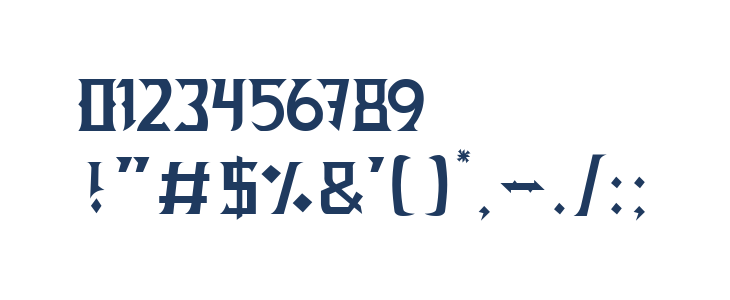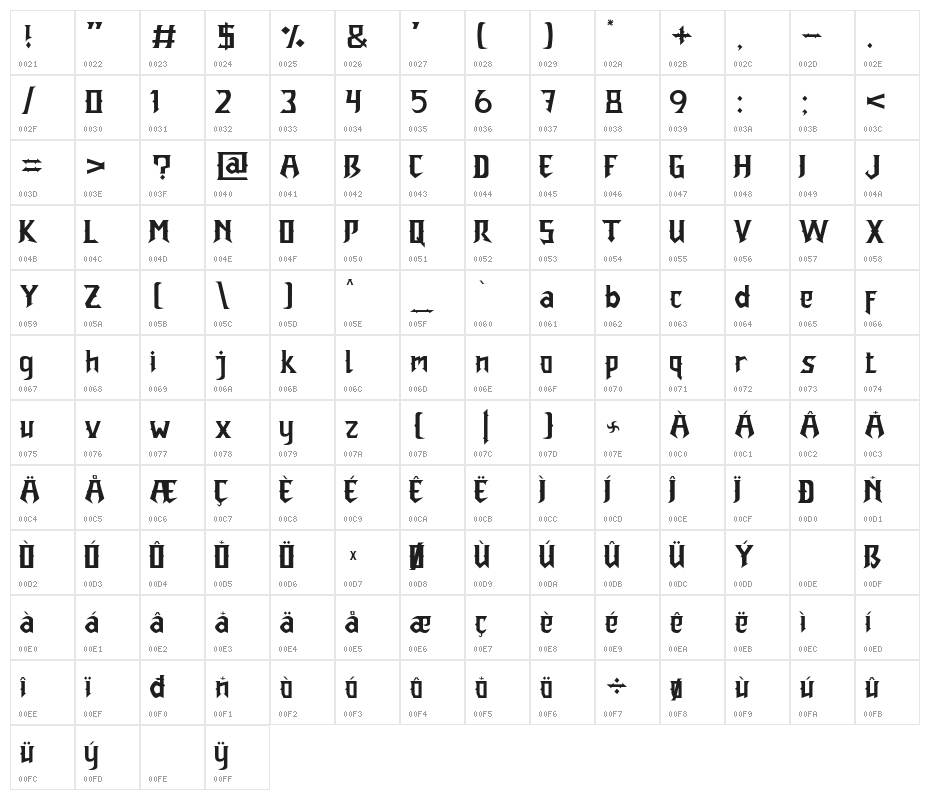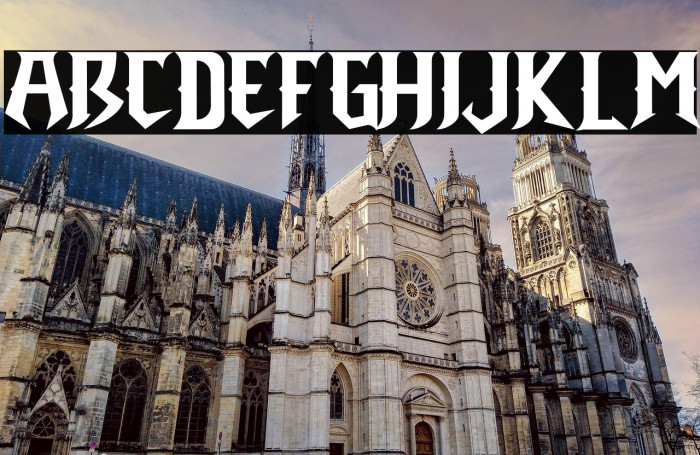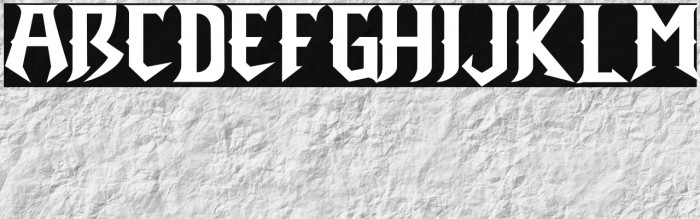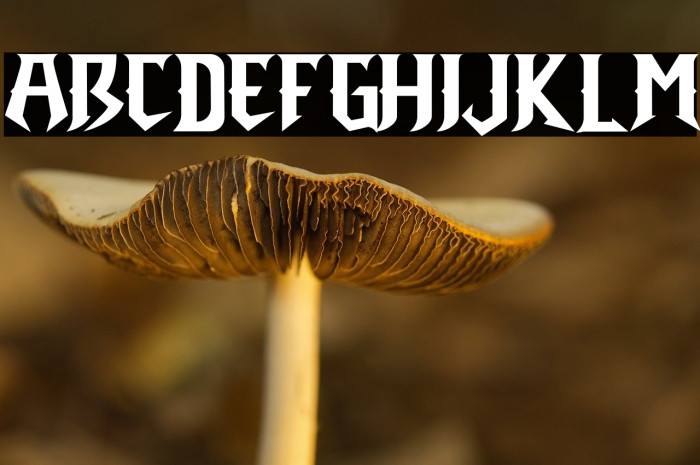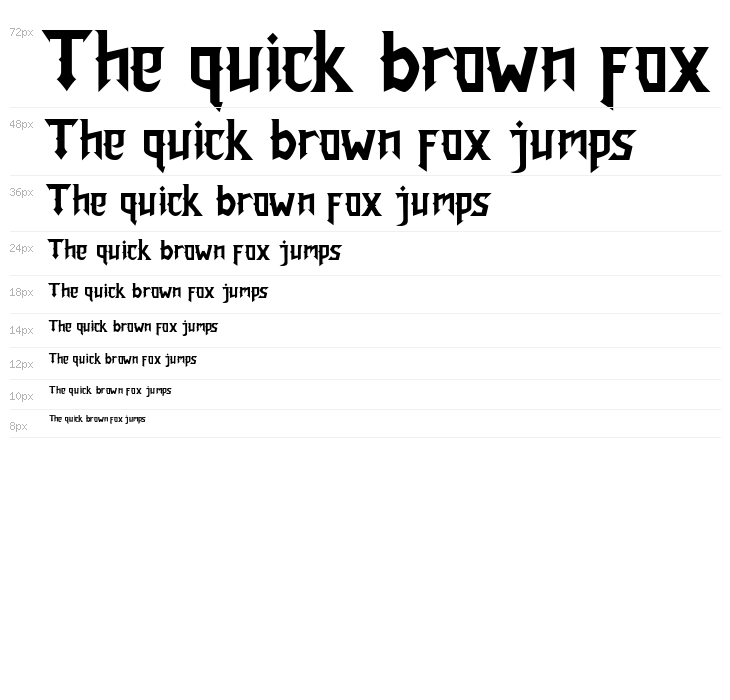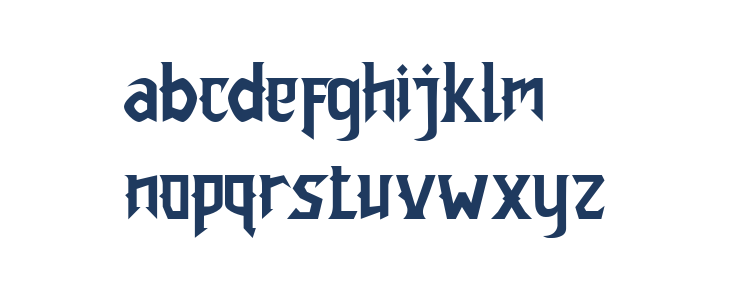
Heroes Font
Heroes Description
This font features a bold and striking design with sharp, angular edges and a gothic-inspired aesthetic. The uppercase letters are particularly dramatic, with pointed serifs and a strong vertical emphasis. The lowercase letters maintain the same angular style but with a slightly softer approach, providing a nice contrast to the uppercase. Numbers and special characters are designed to match the overall theme, ensuring consistency across all glyphs. The font's unique style makes it ideal for projects that require a bold and impactful visual statement.
| Overall Style | Gothic, Decorative |
| Proposed Projects | Ideal for use in posters, album covers, video game titles, and any project needing a dramatic and bold typeface. |